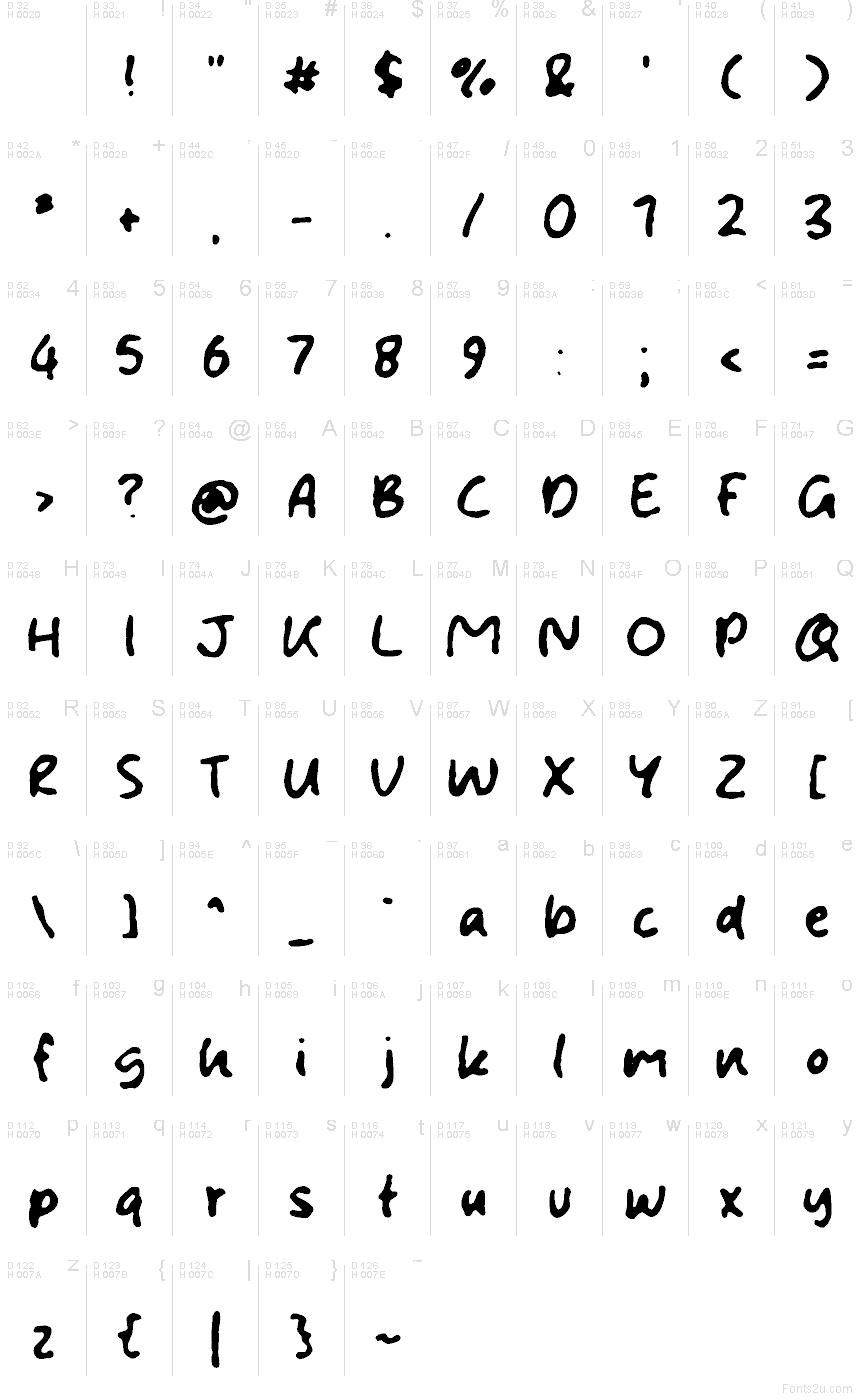
Crazy Work, by MJType, is a free playful brush font with soft, inflated strokes and a loose hand-painted rhythm. The letters feel casual and a little goofy, with rounded ends, bouncy curves, and chunky shapes that give the whole font an easygoing, homemade tone.
It fits poster headlines, kids' packaging, cafe menus, sticker designs, and social media title cards where a friendly handwritten voice matters more than polish. As a free font, it also suits quick branding mockups and short cover lines, because those thick, wobbly letters keep even brief words feeling warm and animated.